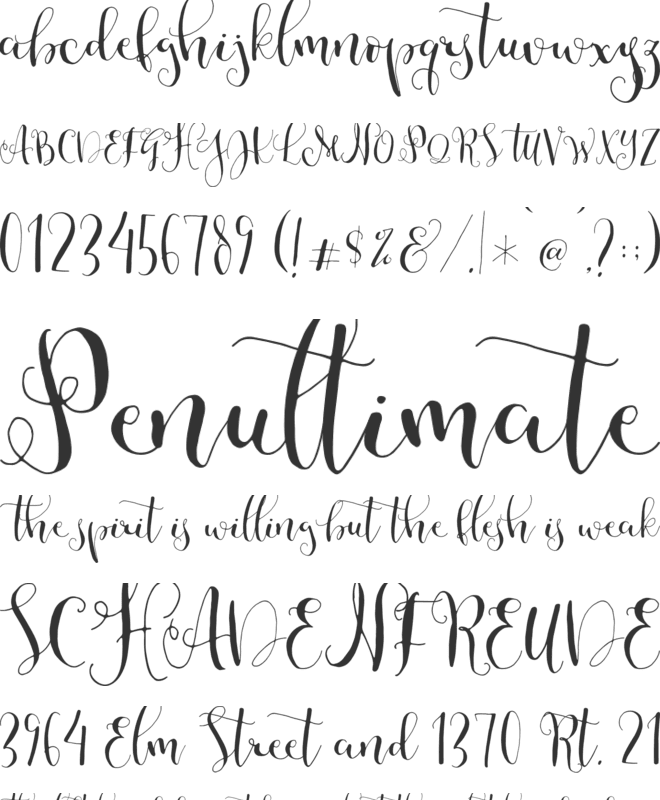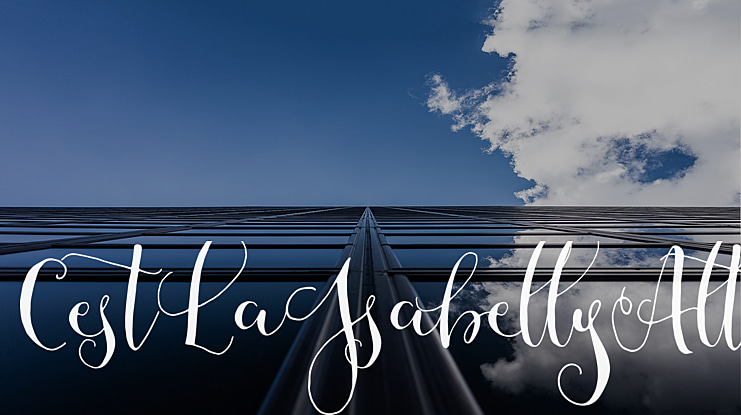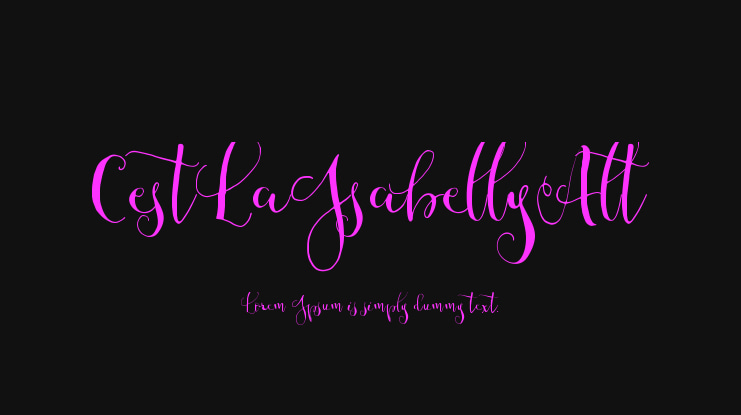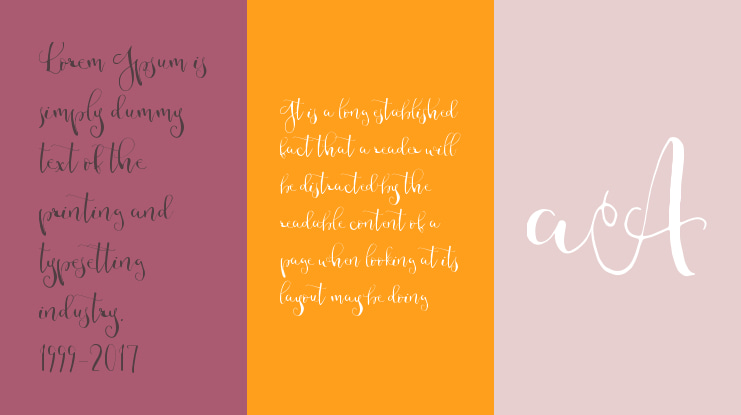
CestLaIsabellyAlt Font
C'est La Isabelly Alt fonts is PDF embedded and Office software friendly, best for your signature, invitation, card design or journaling, any modern until classy design needs. This version is Personal Use only.
Get the complementary font C'est La Isabella at dafont http://www.dafont.com/cestlaisabelly.font as seen on preview below.